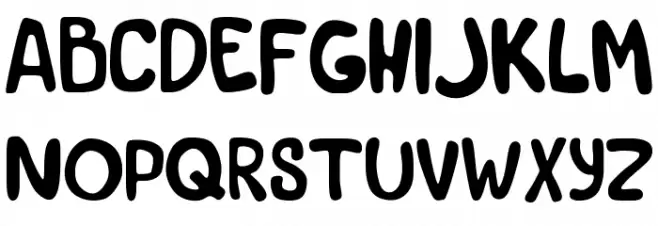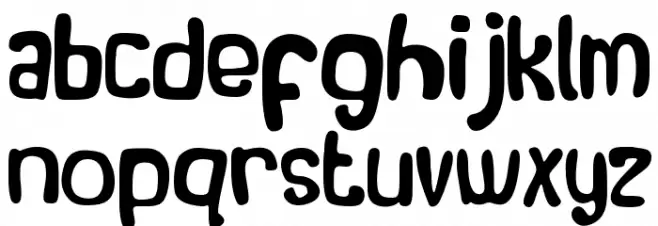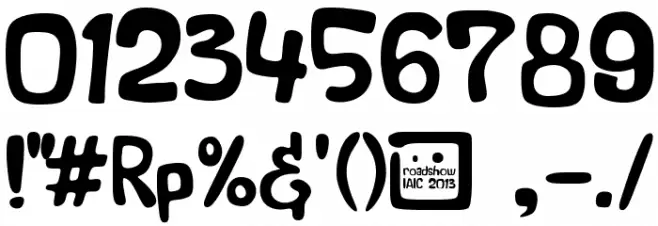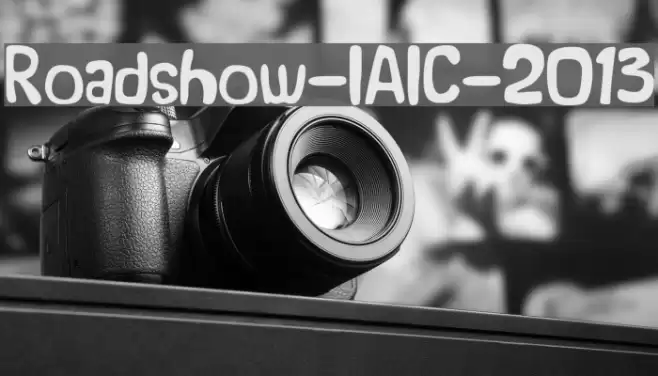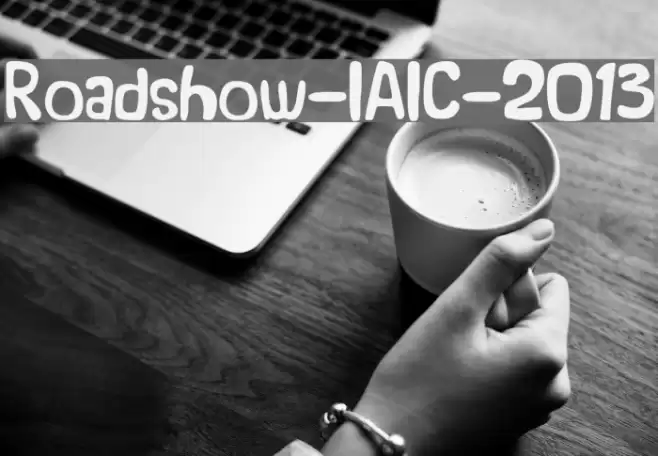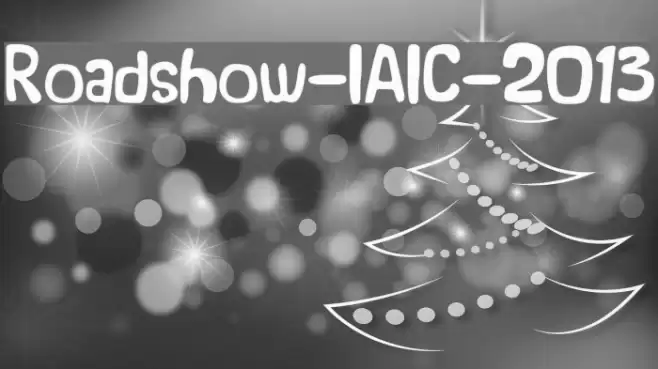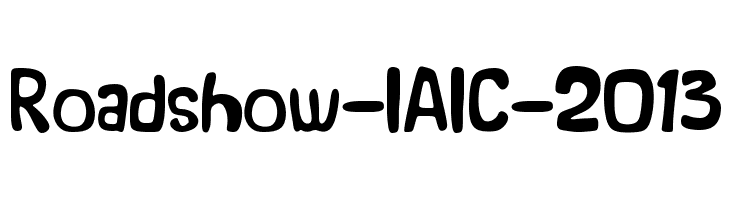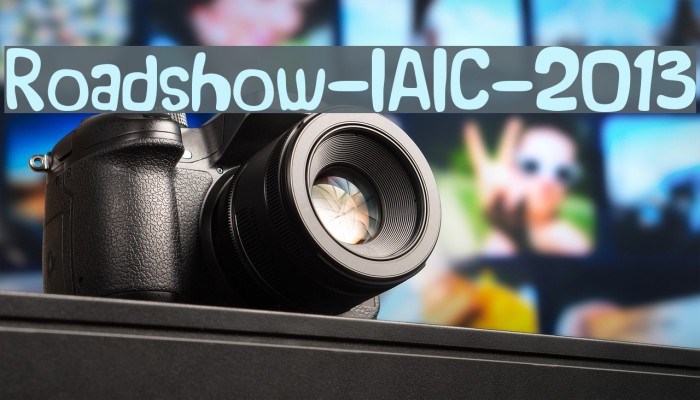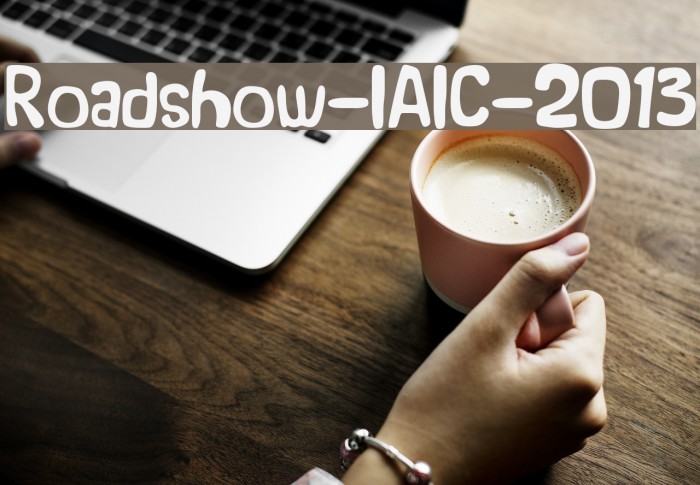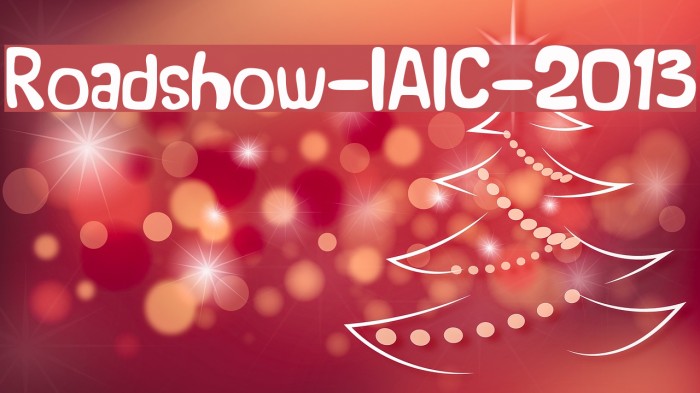
Roadshow-IAIC-2013 Font
Roadshow-IAIC-2013 Description
This font features a playful and rounded style, characterized by its bold and smooth curves. The letters are evenly weighted, giving a consistent and friendly appearance. The uppercase and lowercase letters maintain a uniform width, contributing to a cohesive look. Numbers and special characters follow the same design principles, ensuring readability and a fun aesthetic. The overall design is approachable and ideal for projects that require a touch of whimsy and creativity.
A playful, rounded font with bold, smooth curves and a friendly appearance.
- Proposed Projects: Ideal for children's books, playful branding, casual invitations, and creative posters.
- Overall Style: Playful